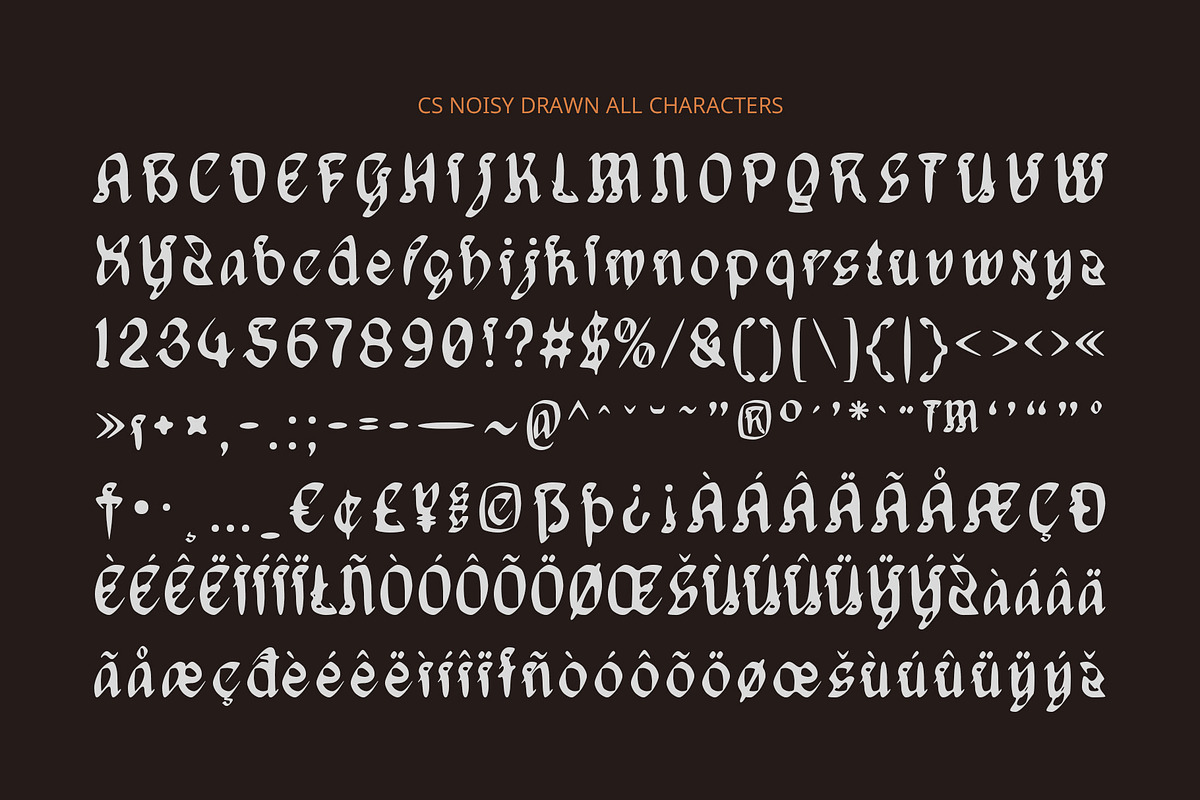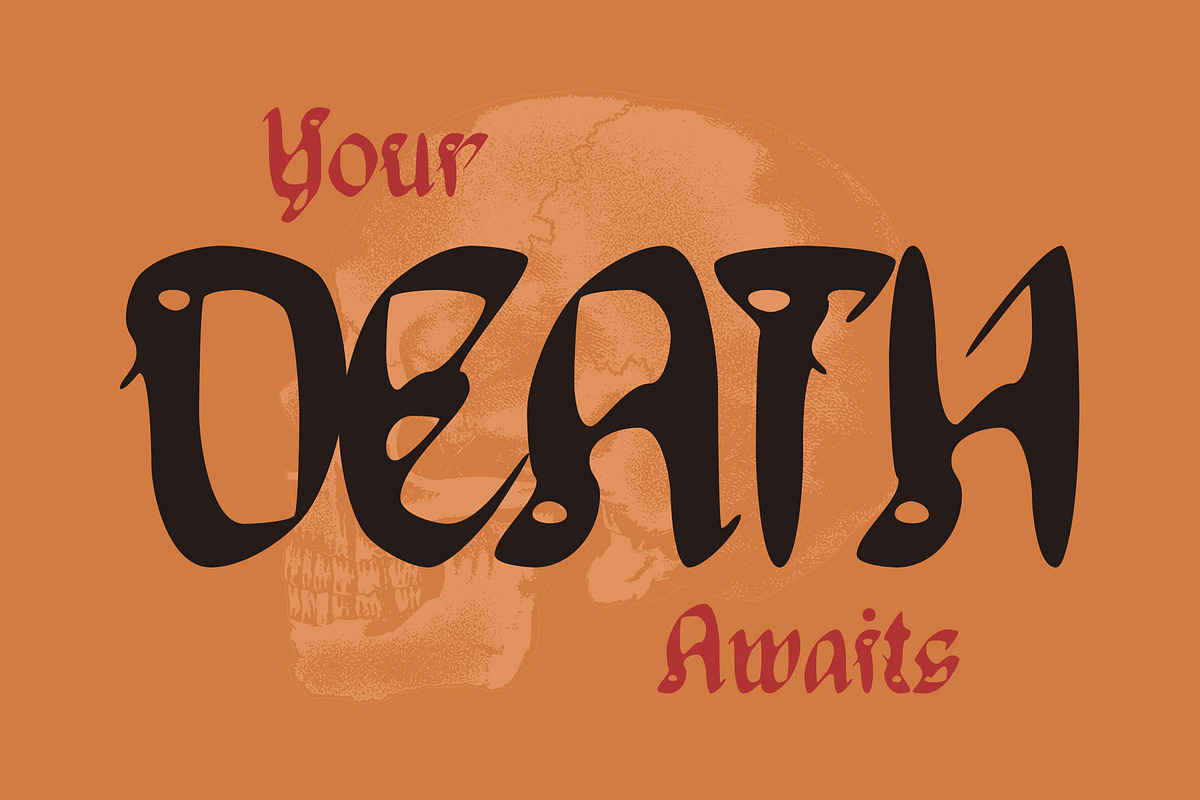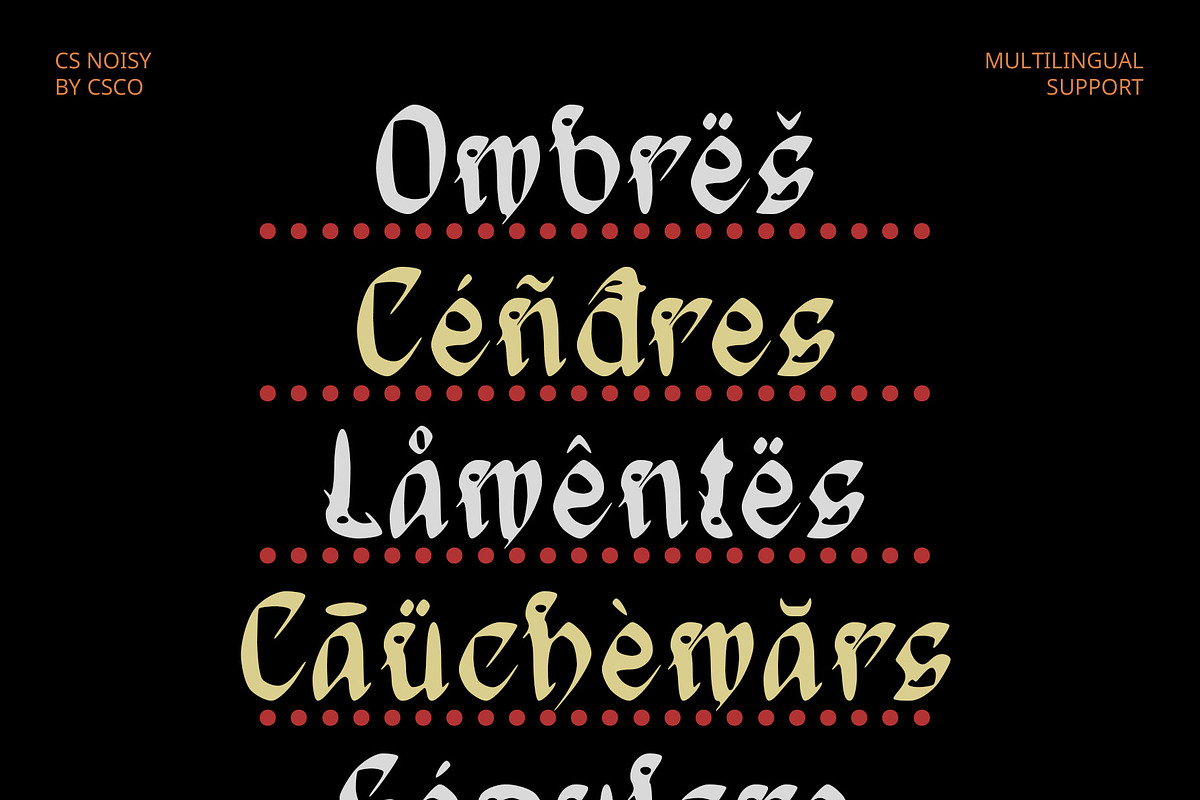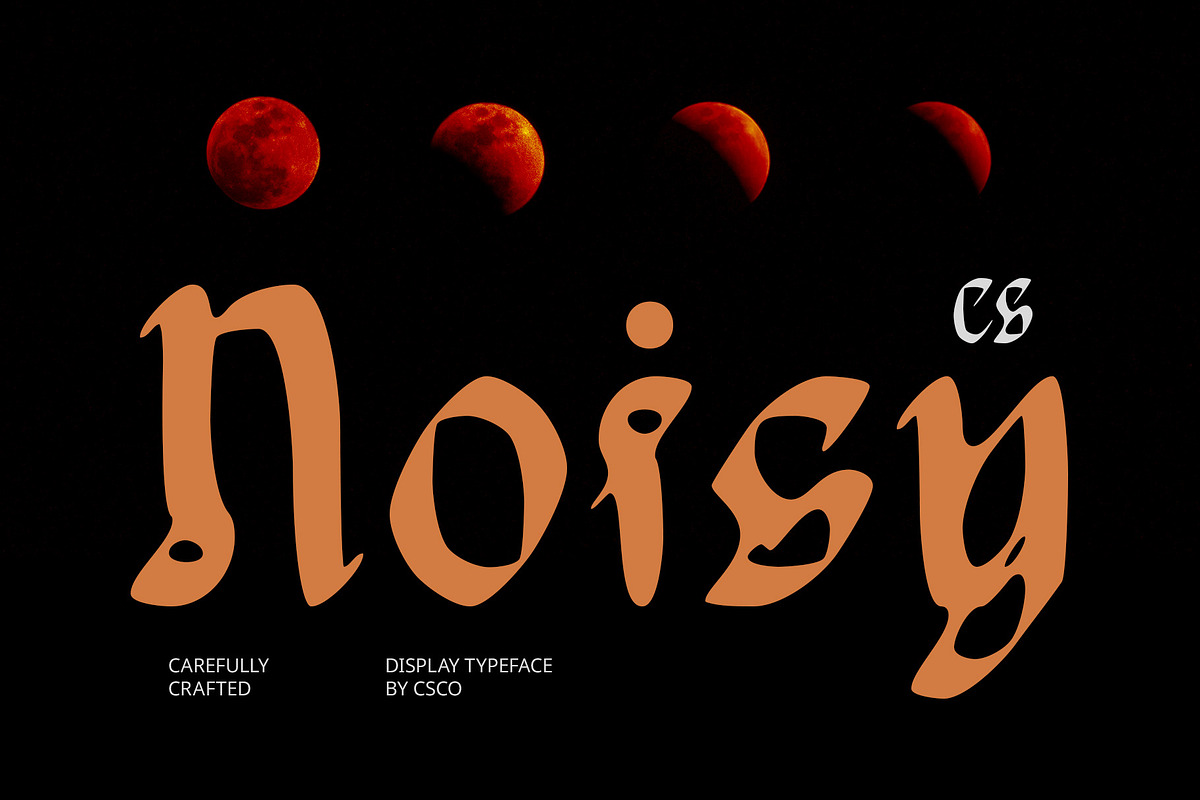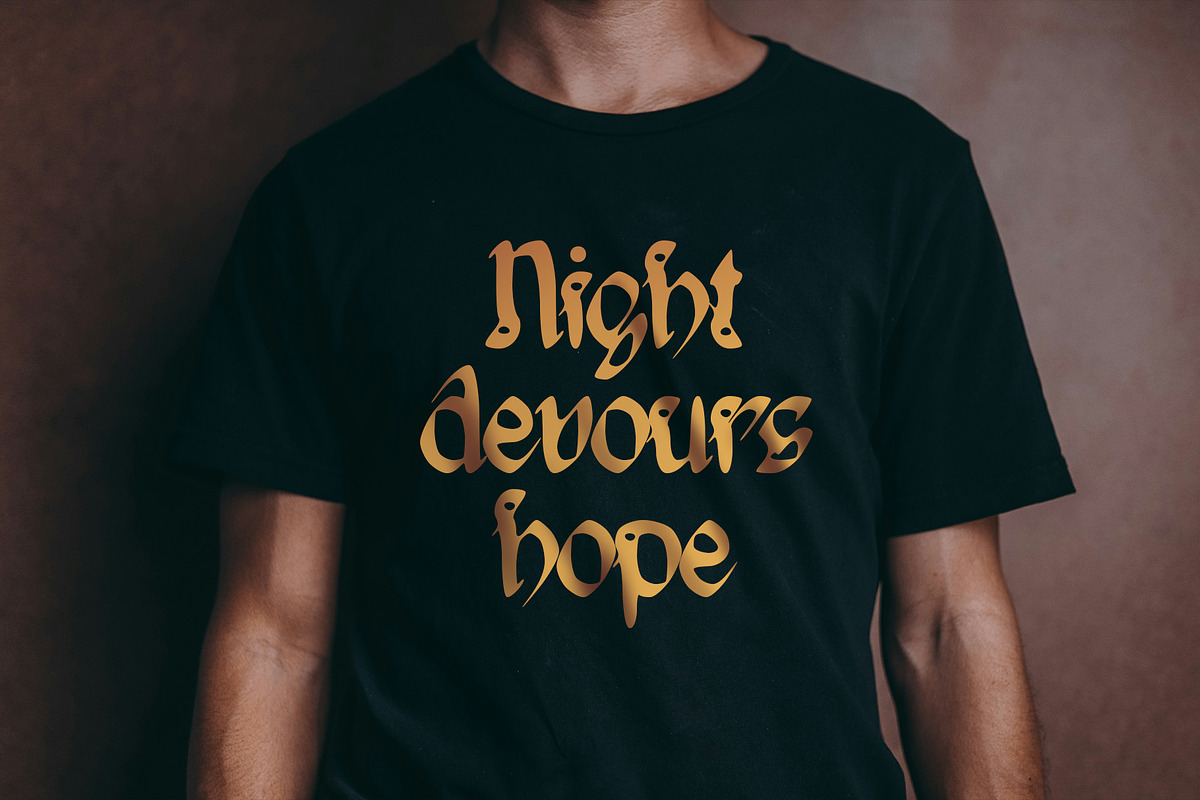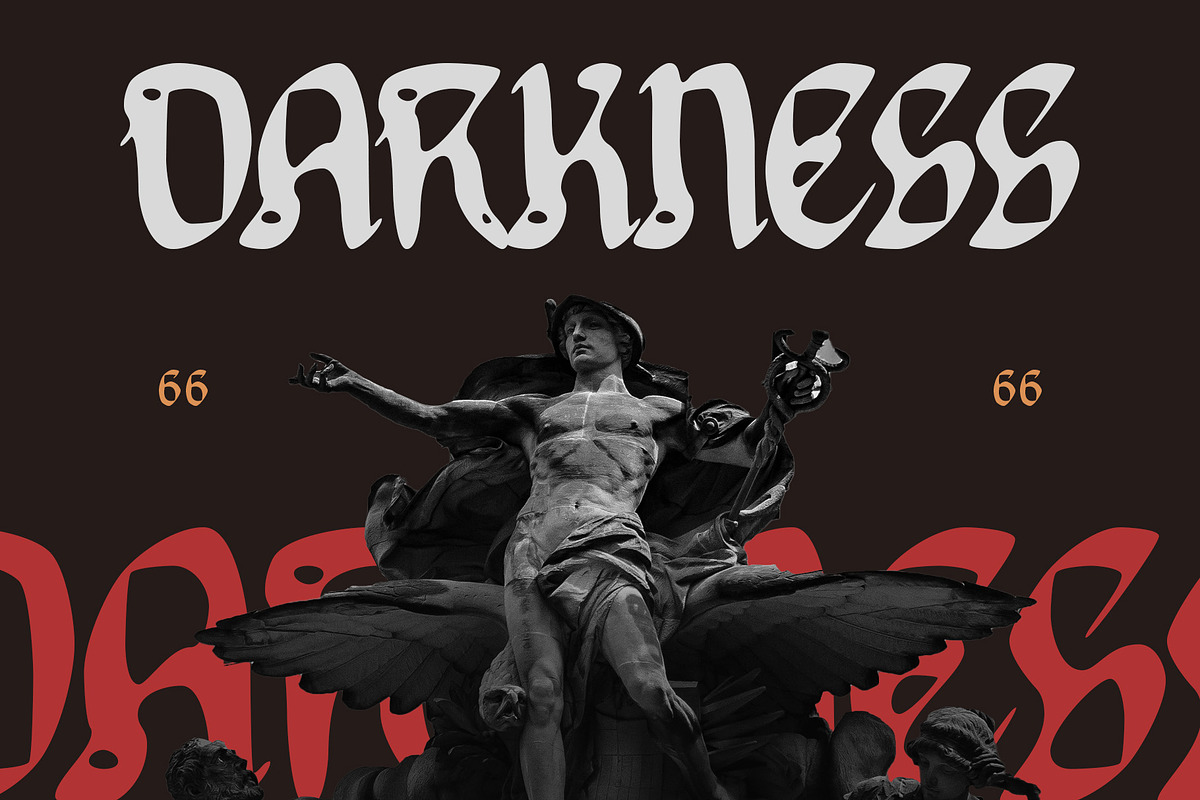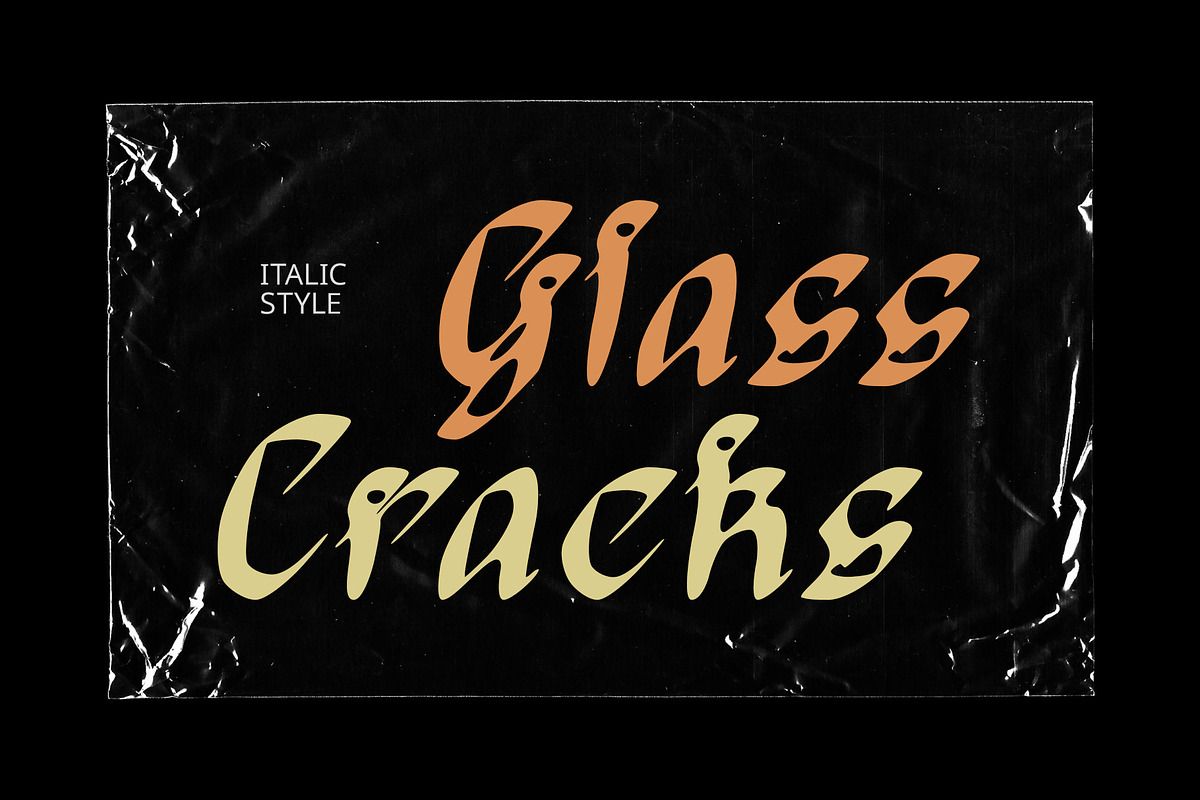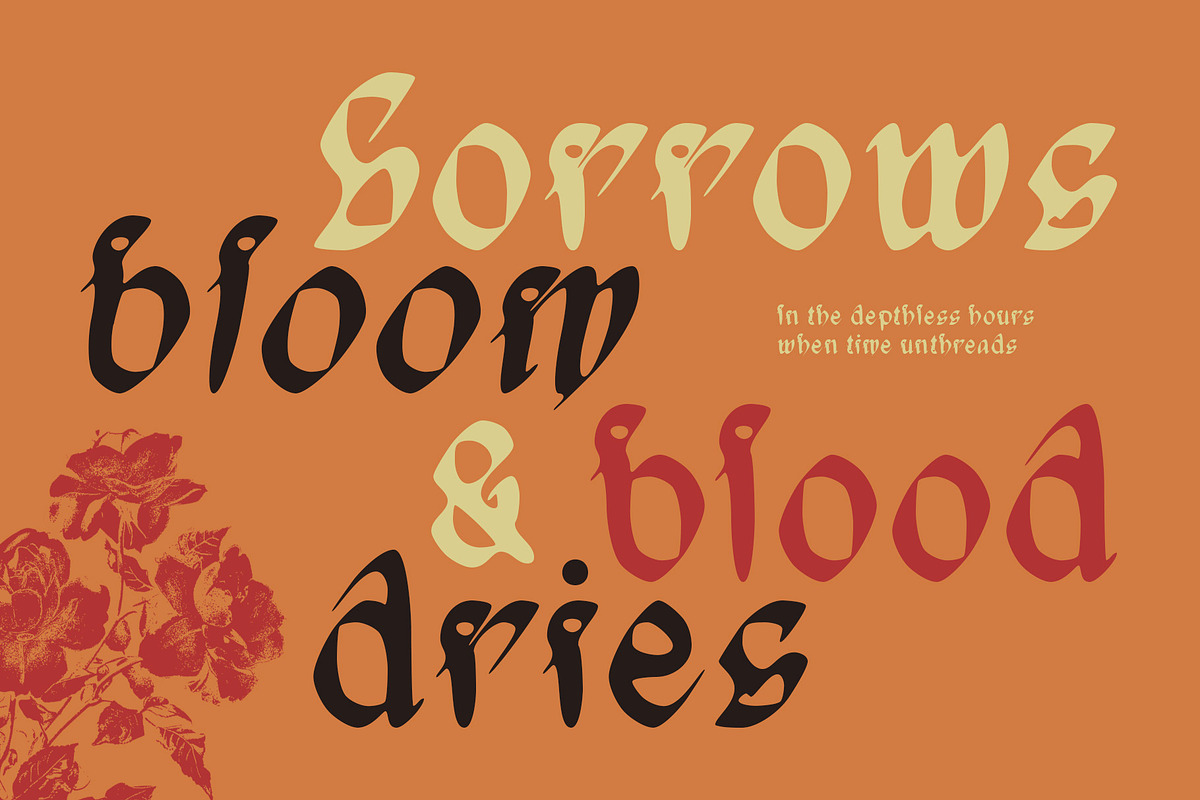
CS Noisy Drawn
CS Noisy Drawn – Where Medieval Drama Meets Artistic Rawness
Medieval Blackletter with Expressive Structure CS Noisy Drawn is a blackletter-style display font inspired by the intricate forms of medieval manuscripts. Its ornate structure and sharp strokes convey a dramatic, historic essence—making it instantly recognizable and full of depth. The bold, decorative character of the typeface gives a sense of strength and mystique rooted in Gothic tradition.
Drawn Effect for Handmade Texture The added drawn effect introduces an organic, rough texture, simulating the look of hand-inked strokes. This visual imperfection brings a sense of authenticity and artistic individuality, adding warmth and personality to the otherwise rigid blackletter form. It makes each character feel like part of a handcrafted visual experience.
Classic Meets Imperfect for Unique Personality This font has a captivating and unique feel, beautifully fusing historical charm with a contemporary expressive twist. The combination of classic letterform details and rough, imperfect textures creates a mysterious and character-rich appearance. It feels ancient yet artistically rebellious—ideal for bold storytelling and visual exploration.
Perfect for Dark Fantasy and Gothic-Themed Designs Whether you’re working on dark fantasy titles, gothic music posters, experimental branding, or editorial designs that crave a powerful antique flair, this captivating font delivers a theatrical and moody presence. Its intense and memorable style adds atmosphere, texture, and visual storytelling to any creative project that seeks to stand apart.